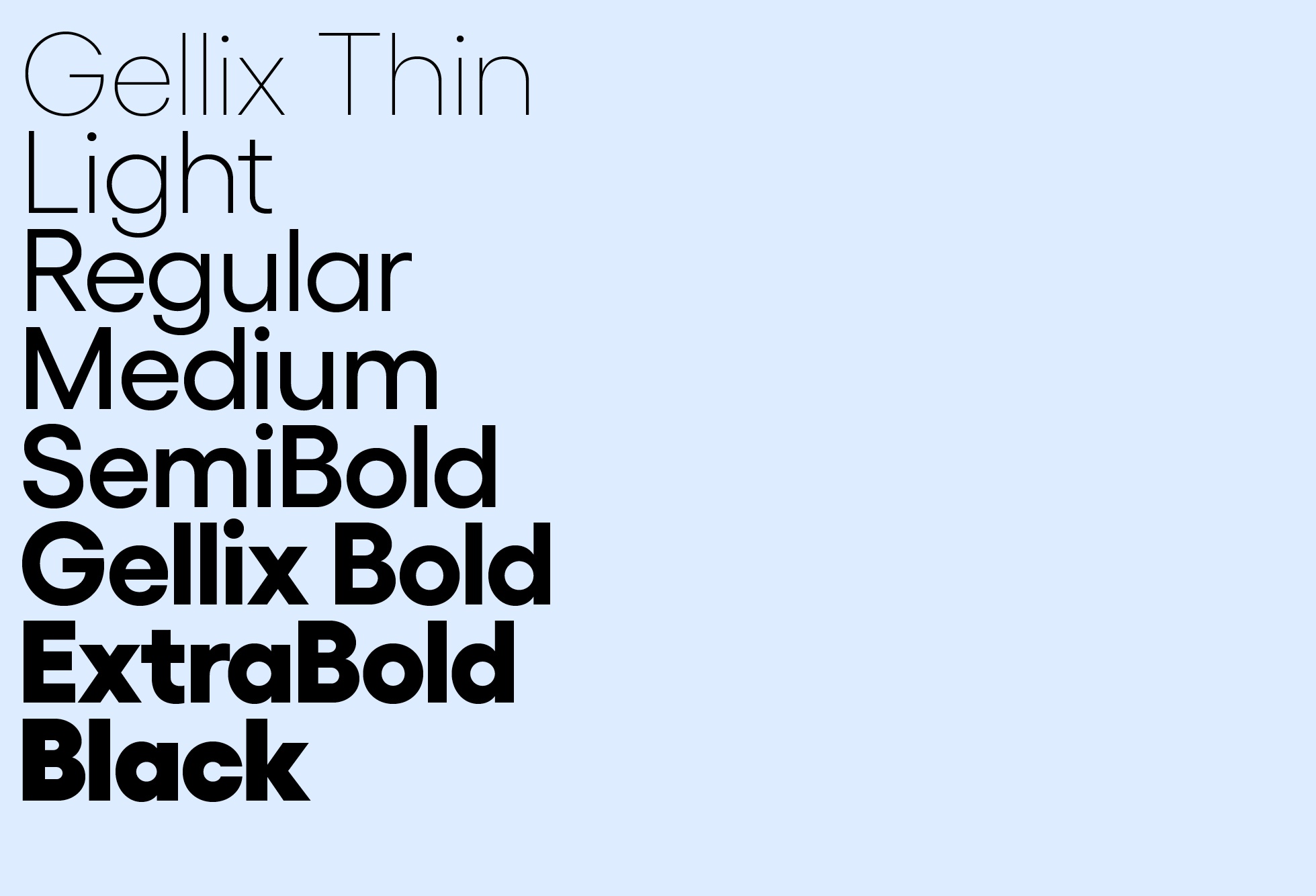
Gellix Font
Gellix Font finds perfect application in startup tech companies, innovative mobile applications, modern e-commerce platforms, creative agency portfolios, contemporary digital magazines, progressive educational materials, forward-thinking financial services, clean lifestyle brands, user-friendly software interfaces, and dynamic marketing campaigns requiring fresh, approachable sophistication.
What makes Gellix Font exciting is its exceptional balance of geometric precision and human warmth that creates typography perfectly suited for today's digital-first world while maintaining strong emotional connection with users. This versatile typeface features carefully refined letterforms with subtle optical adjustments that ensure superior readability across all screen sizes and resolutions, from mobile devices to large displays. The font's friendly professionalism and technical excellence make it ideal for brands seeking to communicate innovation, trustworthiness, and user-centered design philosophy in competitive digital markets.
Gellix Font belongs to the humanist sans-serif font family, specifically designed for comprehensive digital applications and contemporary brand identity systems. This font family typically includes thin, light, regular, medium, bold, and black weights with matching italic styles, providing designers with complete typographic tools for creating cohesive user experiences and scalable brand communications across all digital touchpoints.
Perfect for UX designers, digital product teams, startup founders, and creative professionals working in technology sectors, this typeface excels in user interfaces, digital communications, and contemporary branding applications. The font's screen-optimized design extends across web platforms, mobile applications, digital advertising, and interactive media where user experience and readability are critical success factors.
The meticulously engineered letterforms maintain optimal clarity and friendly character across all digital environments and viewing conditions. From detailed mobile app interfaces to large-scale digital billboard campaigns, Gellix Font performs consistently while preserving its distinctive approachable aesthetic and professional credibility.
Contemporary designers appreciate how this font bridges technical functionality with emotional appeal, creating digital experiences that feel both cutting-edge and genuinely human. Its extensive language support and web optimization ensure seamless integration into global digital products and international technology companies.